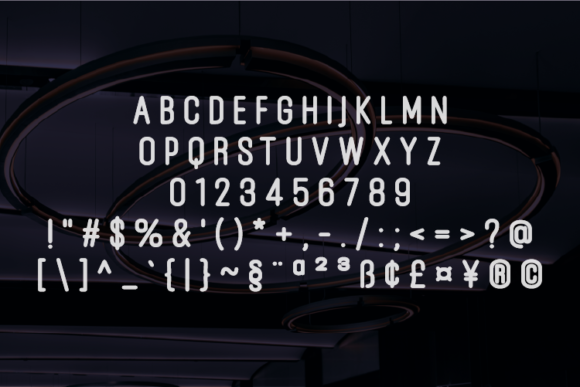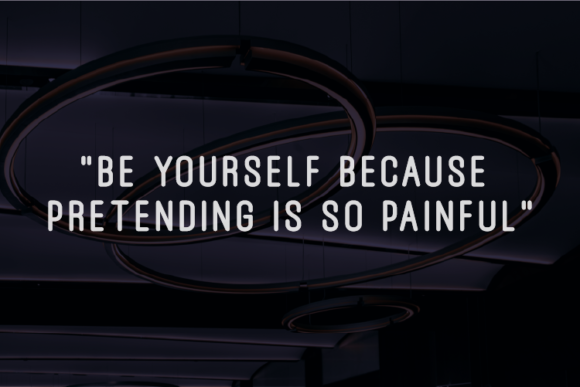
Introduction to Levision Font
Have you ever stared at a blank canvas, waiting for inspiration to strike? It’s that moment when the creative wheels start turning, and your imagination runs wild. For designers, it’s a thrill like no other – the chance to bring a new idea to life. And what better way to kick-start that creative spark than with a font that makes a statement?
Enter Levision Font, a bold and simple sans serif font that’s sure to elevate your designs. With its clean lines and modern aesthetic, Levision Font is the perfect addition to any creative project. Whether you’re working on a logo, brochure, or website, this font is sure to make your ideas shine. And the best part? It’s available for free download, making it a valuable resource for designers of all levels.
What sets Levision Font apart is its versatility and high quality. With a transparent background, you can easily layer it over other design elements, creating a seamless look that’s sure to impress. So why settle for a bland, generic font when you can make a statement with Levision Font? Add it to your design arsenal today and watch your creative projects come alive!
Key Features of Levision Font
- High-quality design resource suitable for creative projects, including logos, branding, and digital art.
- Unique and versatile font style, ideal for applications requiring a modern and sleek aesthetic.
- Transparent background, allowing for easy integration with various design elements and backgrounds.
- Designed to be easily scalable, making it perfect for use in various creative projects, from print to digital media.
Honest Review: Levision Font
I recently stumbled upon the Levision Font, and I must say it’s a fantastic addition to any designer’s toolkit. As a design resource, it offers a lot of potential for creative projects, especially those that require a modern and sleek look.
One of the standout features of the Levision Font is its transparent background, which makes it incredibly versatile and easy to use. I love how it can be easily overlaid on top of images or other design elements, adding an extra layer of sophistication to any design.
What works well: ✨ High quality, modern design that’s perfect for creative projects, transparent background, and free download make it an excellent choice for designers. It’s also highly legible and can be easily customized to suit different design styles.
What doesn’t work well: ⚠️ The font library is relatively small, and some users may find it lacking in terms of options. However, the quality of the available fonts more than makes up for this limitation.
Overall, I’m thoroughly impressed with the Levision Font. It’s a great addition to any designer’s arsenal and can help take creative projects to the next level.
- High-quality, modern design
- Legible and customizable
Tips for Getting the Most Out of Levision Font
Use Levision Font for headings, titles, and other large text elements to add a touch of elegance to your design.
Combine Levision Font with other design elements, such as images and shapes, to create a unique and eye-catching visual identity.
Levision Font is perfect for:
Brand identity projects
Marketing materials, such as brochures and flyers
Website design and development
Graphic design projects, such as posters and banners